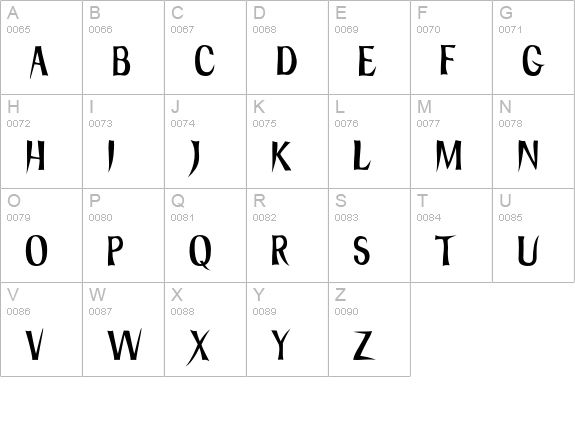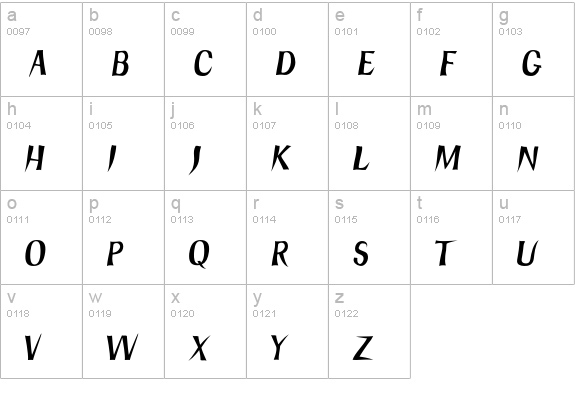
Headbone Font Details
Introducing Headbone, a captivating and bold font that will make your designs stand out from the crowd. This unique typeface combines clean lines with a touch of edginess, creating a modern and versatile look that is perfect for a wide range of creative projects. With its strong and commanding presence, Headbone commands attention and demands to be noticed. Whether used for branding, packaging, posters, or social media graphics, this font will add a powerful and unforgettable element to your designs. What sets Headbone apart is not just its striking aesthetics, but also its accessibility. We are thrilled to announce that Headbone is available for free download exclusively at FontsMarket.com. Yes, you read that right - this exceptional font can be yours at no cost! We believe that creativity should be accessible to all, and by offering Headbone as a free download, we are enabling designers, artists, and enthusiasts of all levels to unleash their imaginations without any limitations. FontsMarket.com is dedicated to providing top-quality fonts that inspire and elevate design, and Headbone is no exception. So why wait? Add Headbone to your font collection today and give your projects the impact they deserve. Download it for free at FontsMarket.com and let your creativity run wild with this remarkable font.